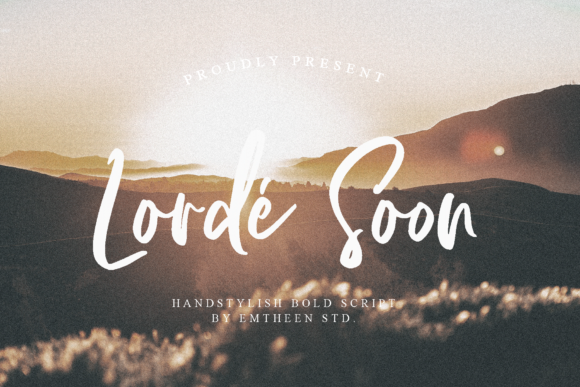
Lorde Soon Font
Unveil your design vision with Lorde Soon, an exquisite script font overflowing with elegance and charm. Its expansive width grants it remarkable versatility, inviting you to adorn your creative projects with a touch of distinction. Immerse yourself in the boundless possibilities, from heartfelt quotes to sophisticated watermarks, from polished business cards to enchanting wedding invitations. As a creation of Emtheen Std, Lorde Soon masterfully caters to the advertising realm, breathing life into your marketing endeavors with its captivating presence.
Unleash your creativity and let Lorde Soon ignite your projects with its allure. Its graceful curves and sweeping strokes evoke a sense of timeless sophistication, transforming your designs into captivating works of art. Whether you seek to add a personal touch to your quotes, elevate your branding with a distinctive watermark, or craft business cards that exude professionalism, Lorde Soon stands as your steadfast companion. Embrace the versatility and elegance it offers, and embark on a journey of creative exploration that knows no bounds.
Lorde Soon's remarkable versatility extends far beyond the confines of traditional applications. Its charm finds expression in the realm of advertising, lending an air of sophistication and exclusivity to your marketing campaigns. Showcase your products or services with an elegance that captivates your audience, leaving an indelible mark in their minds. From eye-catching posters to captivating social media posts, Lorde Soon elevates your advertising efforts to new heights of effectiveness, setting you apart from the mundane and propelling you towards success.
Experience the transformative power of Lorde Soon, and unlock the gateway to a world where design flourishes and creativity reigns supreme. Its beauty and functionality converge seamlessly, empowering you to weave your creative tapestry with precision and finesse. Embark on a journey of artistic expression, where each project becomes a testament to your unique vision and style. Allow Lorde Soon to be your muse, guiding you towards design excellence and leaving your audience spellbound.